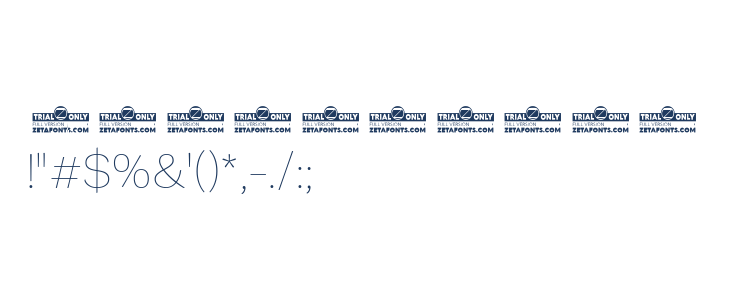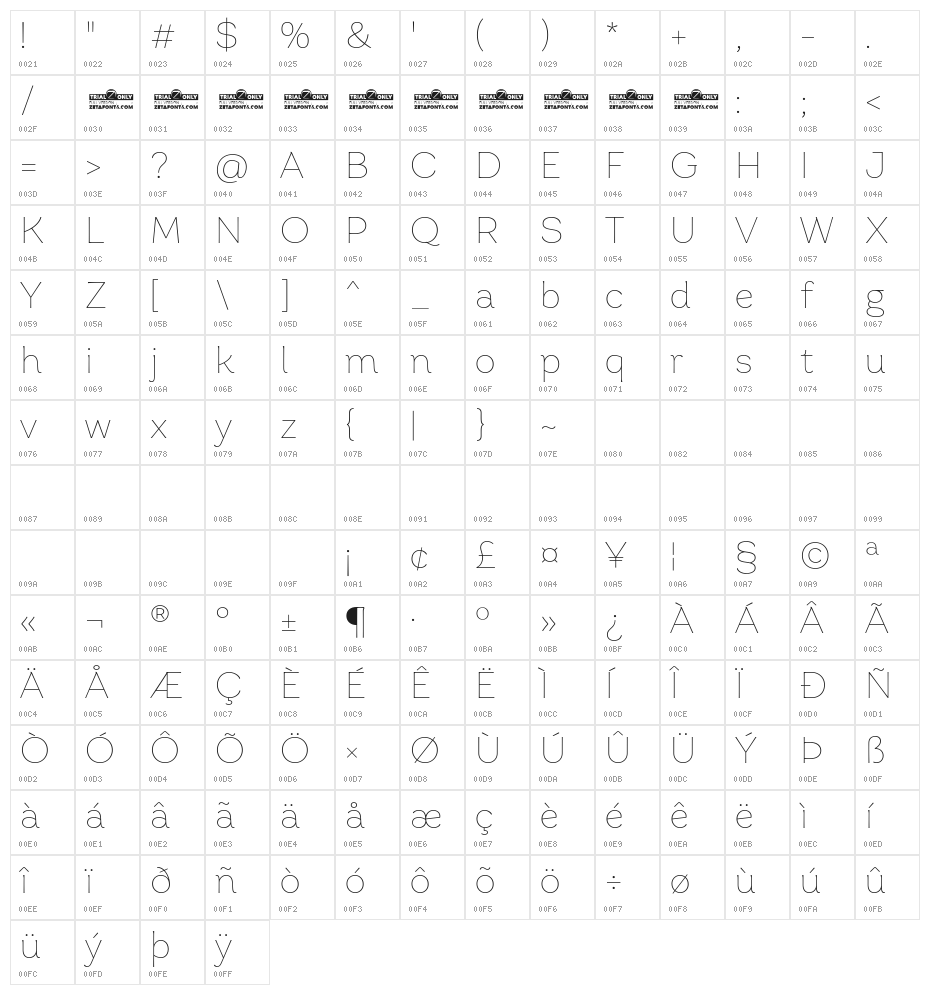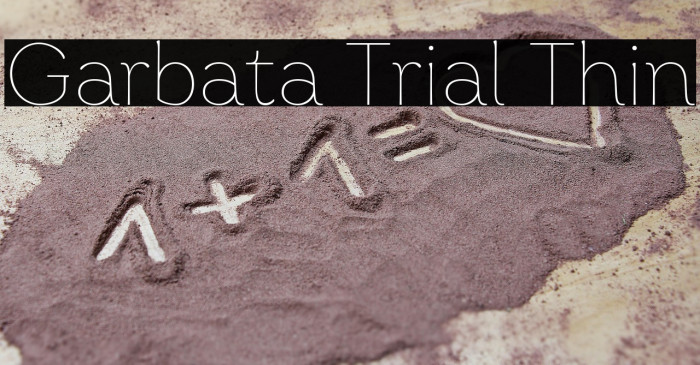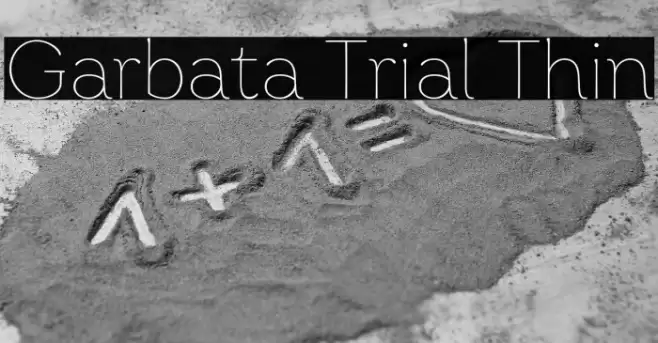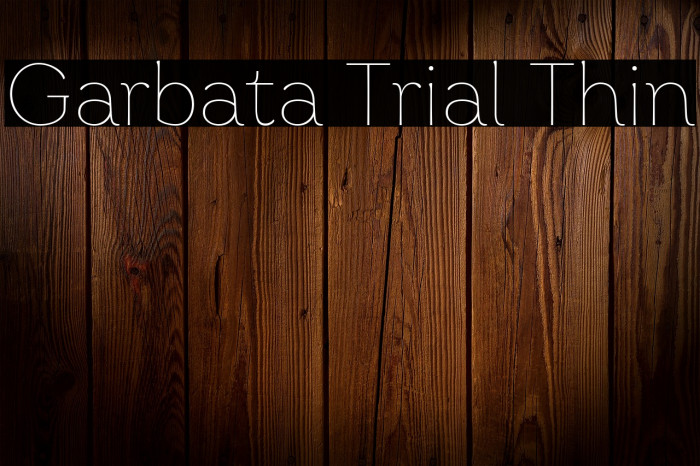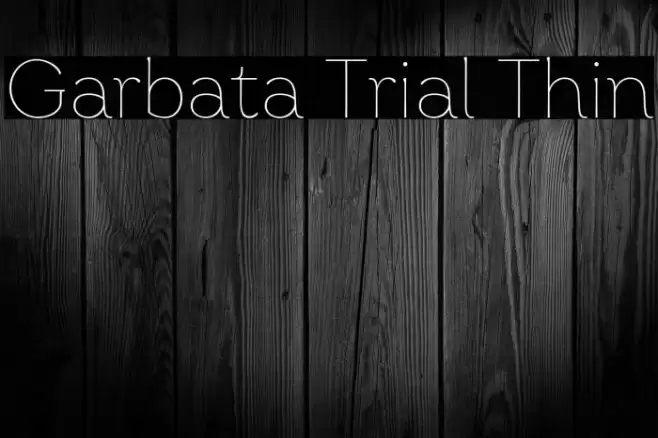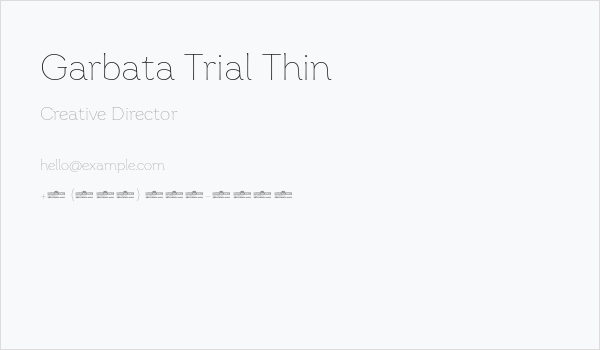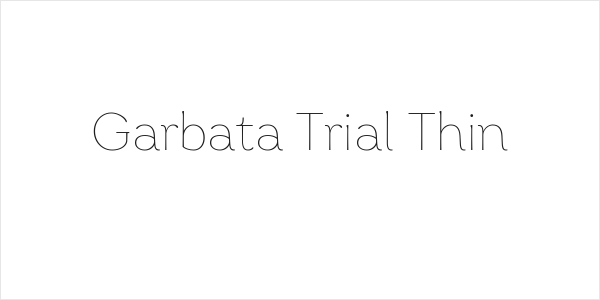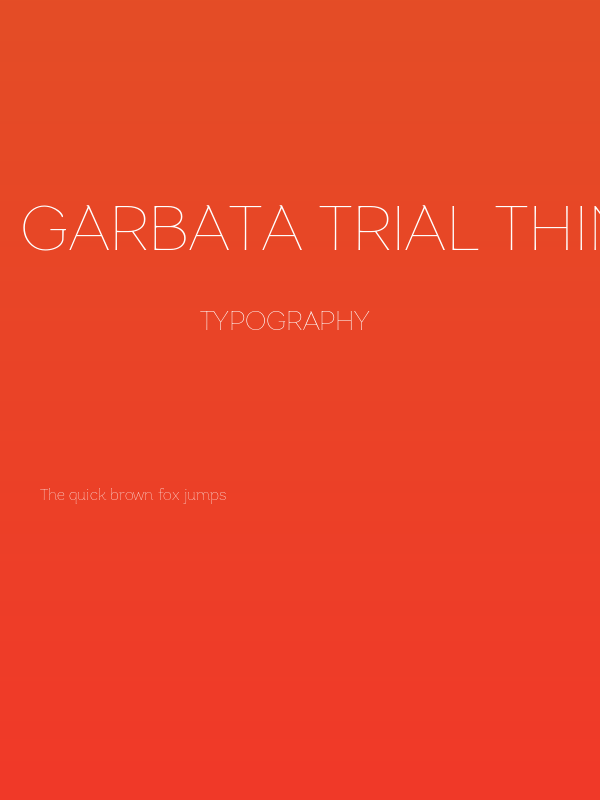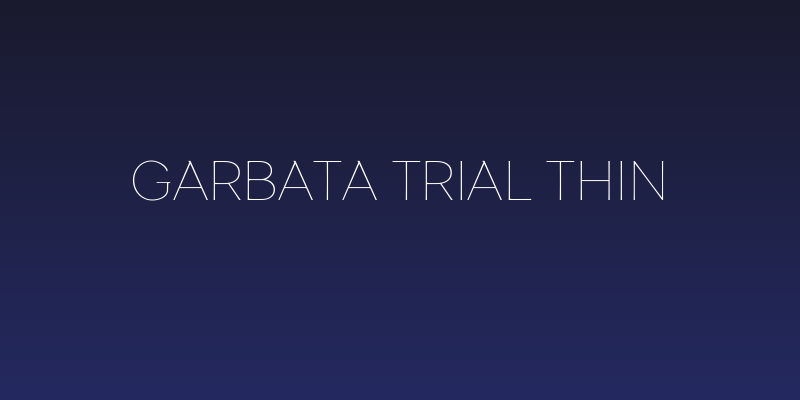
Garbata Trial Thin Font
Garbata Trial Thin Description
This font features a sleek and modern design with thin, clean lines that give it an elegant and minimalist appearance. The characters are well-proportioned, with a consistent stroke width that maintains a uniform look throughout. The uppercase letters are tall and slightly narrow, while the lowercase letters have a gentle, rounded quality that adds a touch of softness. The numerals are straightforward and align well with the overall style. Special characters are included, maintaining the same thin and precise line work. This font is versatile, suitable for a variety of design projects that require a contemporary and sophisticated touch.